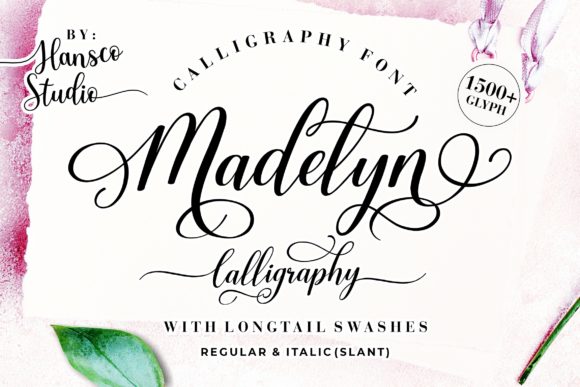
Introducing Madelyn Calligraphy Font, the ultimate script font that will elevate your creative projects to new heights! Created by the talented HansCo, this font is specifically designed to add a touch of elegance and modernity to any piece of art.
Are you tired of searching for the perfect font for your Instagram posts or DIY projects? Look no further! Madelyn Calligraphy Font is here to fulfill all your font fantasies. With its clean and contemporary design, this font will instantly captivate your audience and make your content stand out from the crowd.
One of the key features of Madelyn Calligraphy Font is its versatility. Whether you're creating personalized wedding invitations, branding materials, or simply adding a stylish touch to your social media posts, this font has got you covered. Its cursive nature adds a touch of sophistication and elegance, making it the best font for Cursive Cricut projects.
But what sets Madelyn Calligraphy Font apart from the rest? It's the attention to detail and the abundance of glyphs and swashes. Thanks to its PUA encoding, accessing all the unique characters and decorative flourishes is a breeze. Let your creativity run wild as you experiment with different letter combinations and embellishments.
Imagine the impact Madelyn Calligraphy Font can have on your DIY projects. Add a touch of whimsy to your handmade greeting cards or create stunning wall art with personalized quotes that will leave everyone in awe. The possibilities are endless, and this font is your ultimate tool to bring those ideas to life.
Not only does Madelyn Calligraphy Font provide a wide range of creative possibilities, but it also evokes a range of emotions. From elegance and romance to joy and excitement, this font has the ability to convey the perfect mood for any occasion. Let each stroke of this font's graceful curves and flowing lines transport you and your audience to a world of beauty and inspiration.
In conclusion, Madelyn Calligraphy Font is the go-to choice for anyone seeking a font that combines modernity, versatility, and artistic flair. With its clean design, extensive glyph library, and ability to evoke a multitude of emotions, this font will turn your creative ideas into true pieces of art. Don't miss out on the opportunity to download this font and take your projects to the next level!